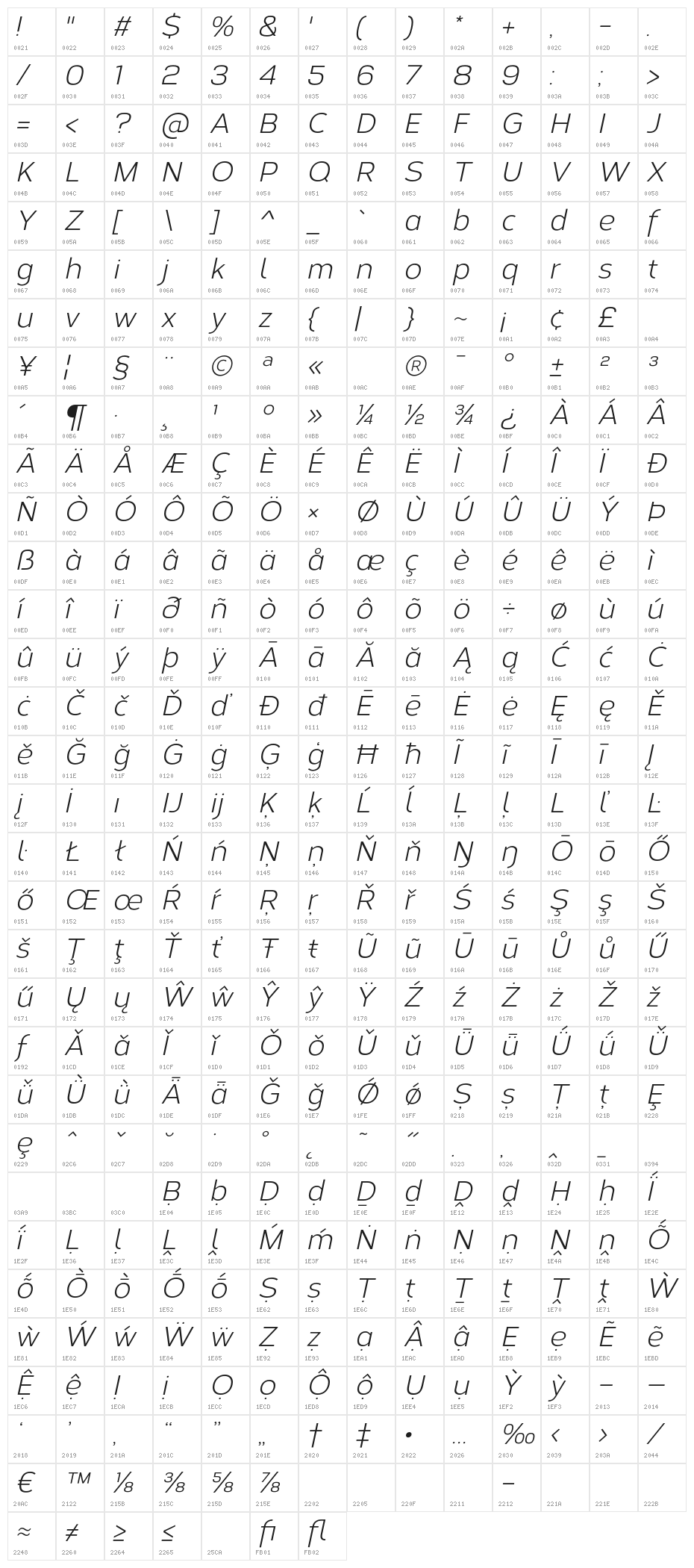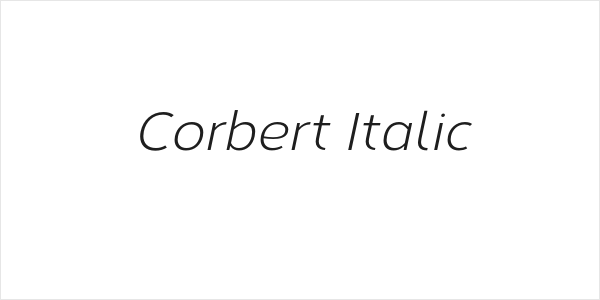
Corbert Italic Font
Corbert Italic Description
This typeface features a sleek and modern design with a subtle italic slant, giving it a dynamic and forward-moving appearance. The characters are clean and well-defined, with smooth curves and a consistent stroke width that maintains readability. The uppercase letters are slightly taller than the lowercase, providing a balanced and harmonious look. The numerals are proportionate and align well with the overall style, while the special characters are distinct and easily recognizable. This font's contemporary aesthetic makes it suitable for a variety of applications.